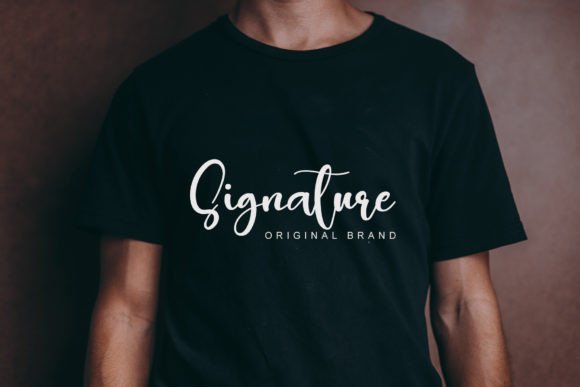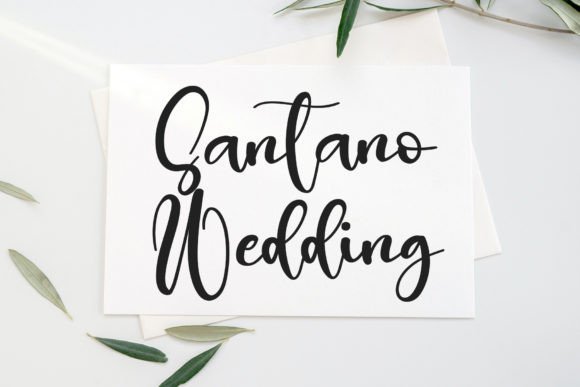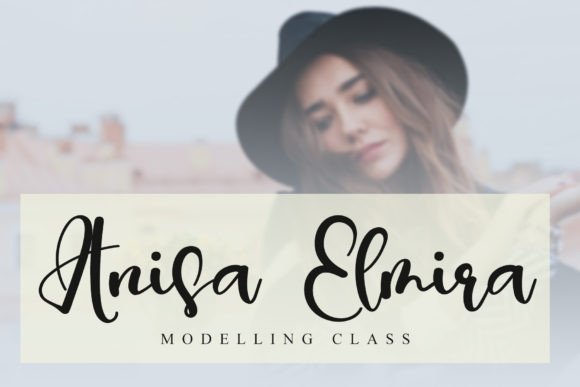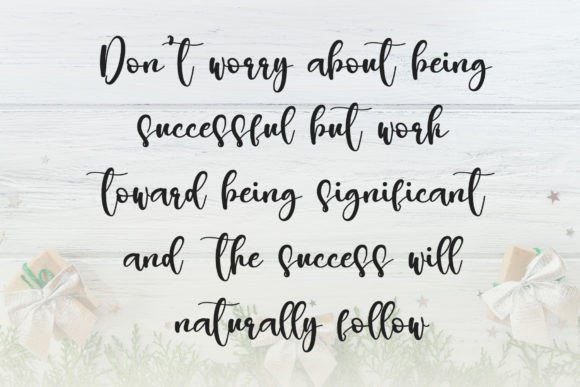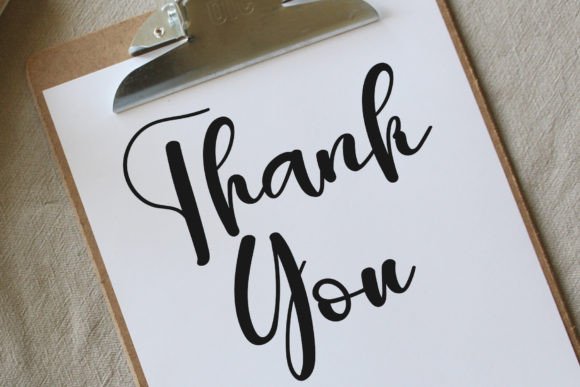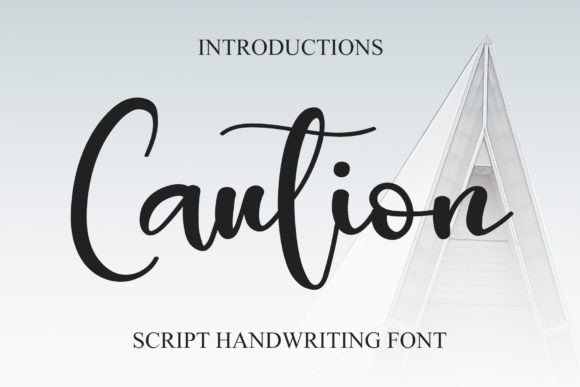
Introducing Caution Font: Elevate Your Designs with Elegance
In the world of design, typography plays a crucial role in conveying the message and aesthetic of a project. Whether you’re a professional designer or a crafty DIY enthusiast, finding the right font can make all the difference. If you’re looking for a typeface that exudes elegance and delicacy, look no further than Caution Font. This beautiful, handwritten font is perfect for a wide range of design needs, from logos and branding to social media posts, advertisements, business cards, wedding invitations, and product design.
The Characteristics of Caution Font
Caution Font is an elegant and delicate handwritten typeface that is sure to capture the attention of your audience. Its refined and sophisticated appearance makes it ideal for designs that require a touch of luxury and refinement. The font’s handwritten nature gives it a personal and unique feel, perfect for creating custom designs that stand out from the crowd.
What Makes Caution Font Special?
One of the standout features of Caution Font is its PUA (Private Use Area) encoding. This means that you can easily access all of the glyphs and alternates, giving you greater flexibility and creative control over your designs. With PUA encoding, you can effortlessly swap out characters and create stunning, one-of-a-kind designs that showcase your creativity.
Caution Font is incredibly versatile and can be used for a wide range of design projects. Here are just a few ideas to get you started:
- Social Media Posts: Elevate your social media presence with eye-catching graphics and typography that grab attention.
- Advertisements: Stand out from the competition with bold and elegant typography that drives results.
- Business Cards: Make a great first impression with custom business cards that showcase your professionalism and style.
- Wedding Invitations: Create beautiful, custom wedding invitations that set the tone for your special day.
- Product Design: Add a touch of elegance to your product designs, from packaging to promotional materials.
Why Choose Caution Font?
With so many fonts to choose from, why should you choose Caution Font? Here are just a few reasons:
- Elegant and Delicate: Caution Font is a beautifully crafted typeface that adds a touch of sophistication to any design.
- PUA Encoded: With PUA encoding, you have complete creative control over your designs, making it easy to access all glyphs and alternates.
- Versatile: Caution Font can be used for a wide range of design projects, from logos and branding to social media posts and product design.
If you’re looking for a font that can elevate your designs and add a touch of elegance, look no further than Caution Font. With its delicate and refined appearance, PUA encoding, and versatility, this beautiful handwritten typeface is sure to become a staple in your design toolkit. Whether you’re a professional designer or a crafty DIY enthusiast, Caution Font is the perfect choice for any design project.